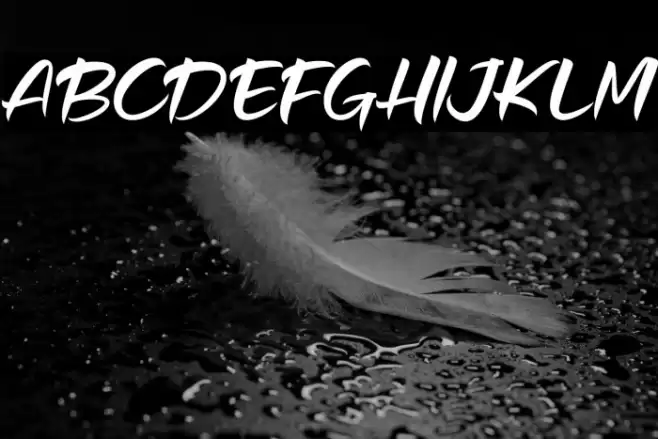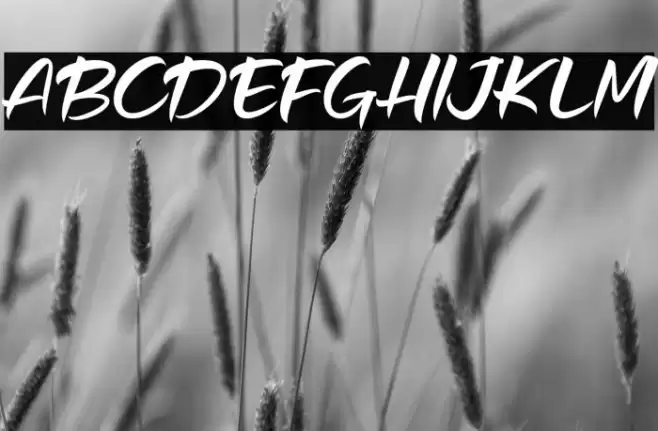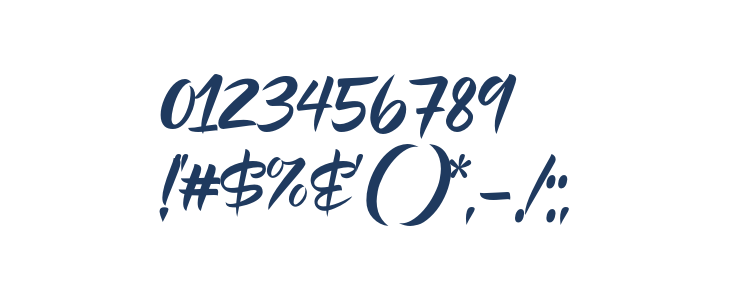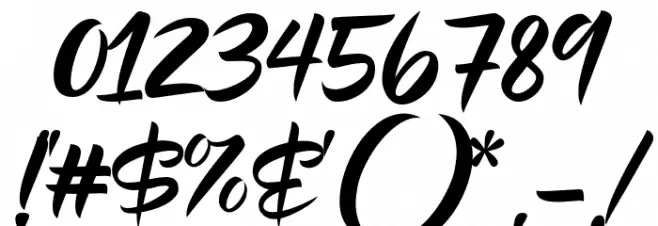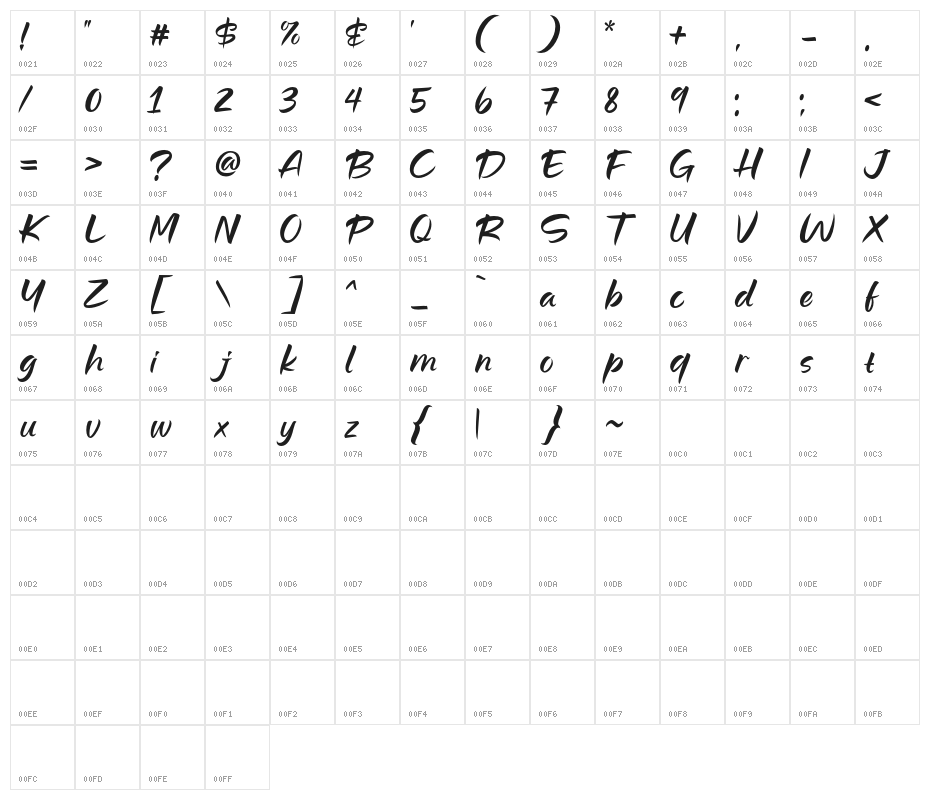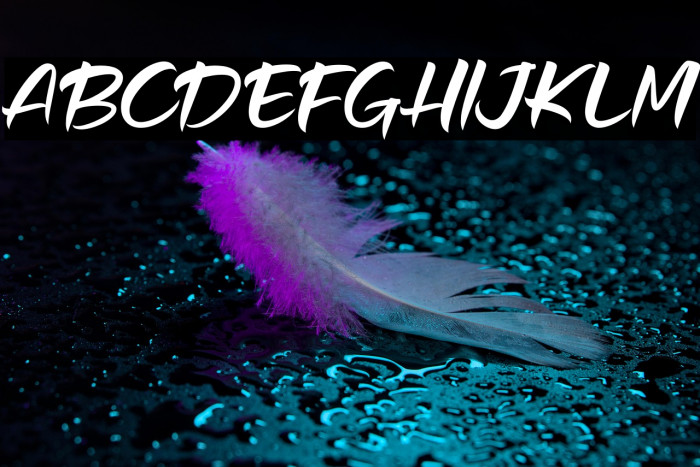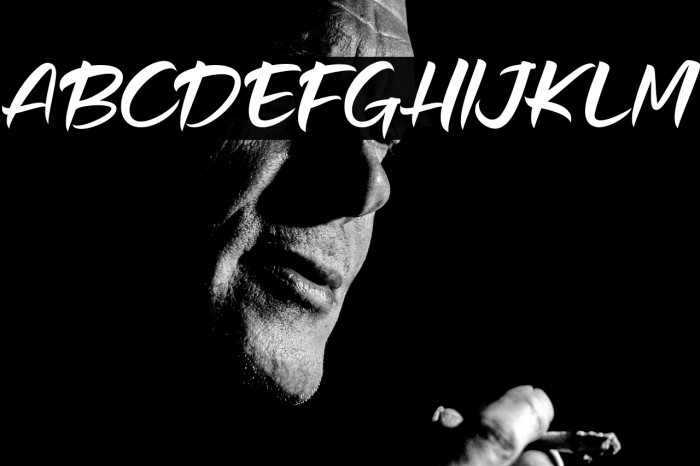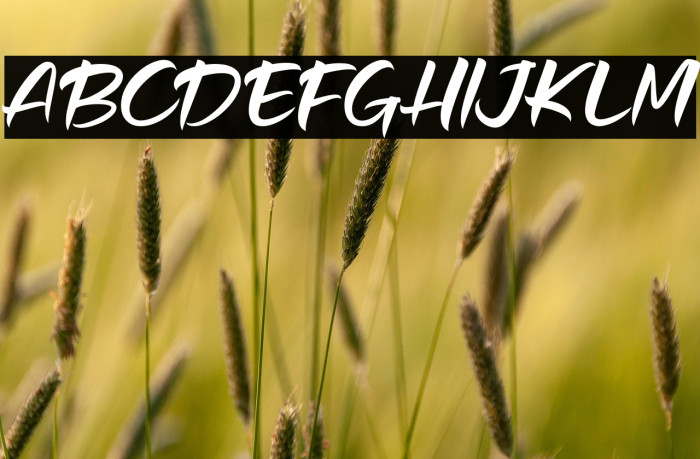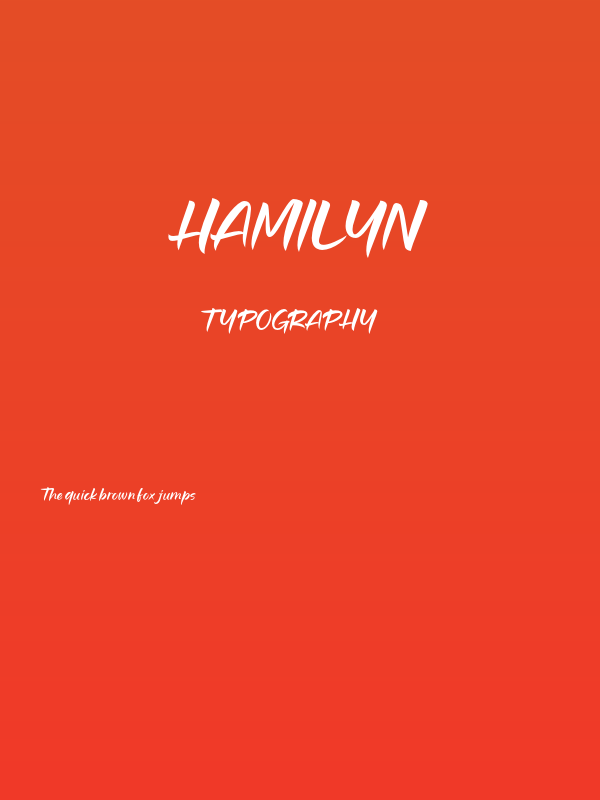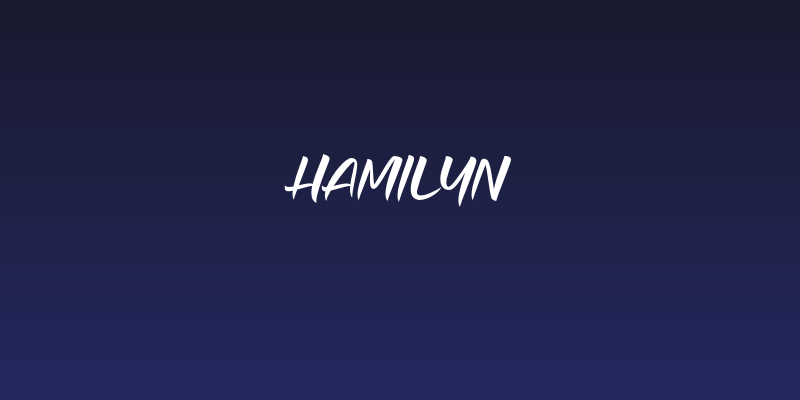
Hamilyn Font
Hamilyn Description
This font features a dynamic and energetic script style, characterized by its fluid, cursive strokes that convey a sense of motion and elegance. The letters are interconnected, creating a seamless flow that enhances its handwritten appearance. The uppercase letters are bold and slightly slanted, while the lowercase letters maintain a consistent rhythm with a playful touch. The numerals are well-integrated, matching the overall style with their rounded and flowing forms. Special characters are thoughtfully designed, complementing the aesthetic with their expressive curves and lines. This font is perfect for projects that require a personal and artistic touch, such as invitations, branding, and creative designs.
- Proposed Projects: Ideal for invitations, branding, artistic designs, and any project needing a personal touch.
- Use Case: Logos, Headlines, Creative designs